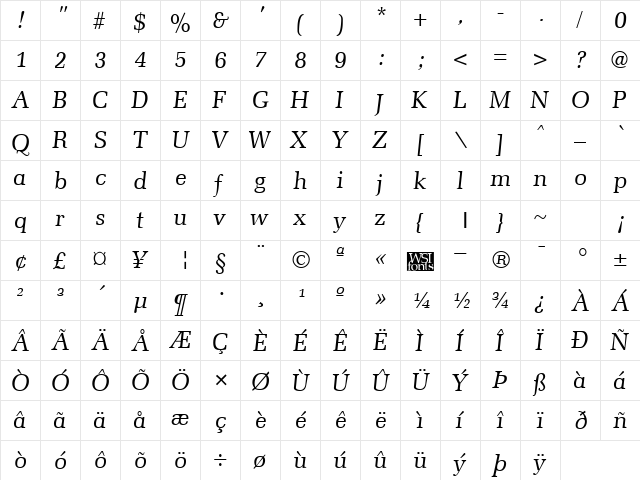
Memoir Italic
Design Context for Memoir Typeface
Memoir is a composed and adaptable typeface that performs quietly and consistently across a wide range of design contexts. The dynamic lean of this cut emphasises speed and emphasis in any layout.
Pro Tip: Try Memoir for annotation and caption copy alongside an upright companion — the contrast in angle creates a dynamic but ordered typographic system.